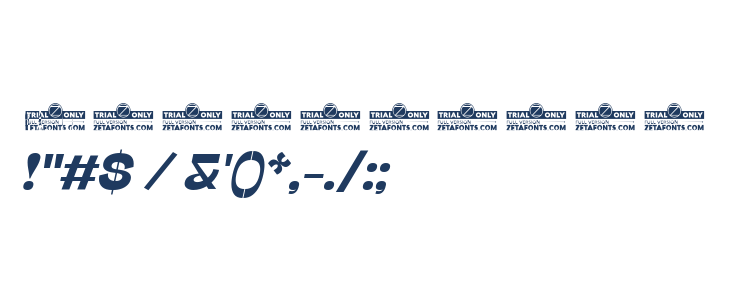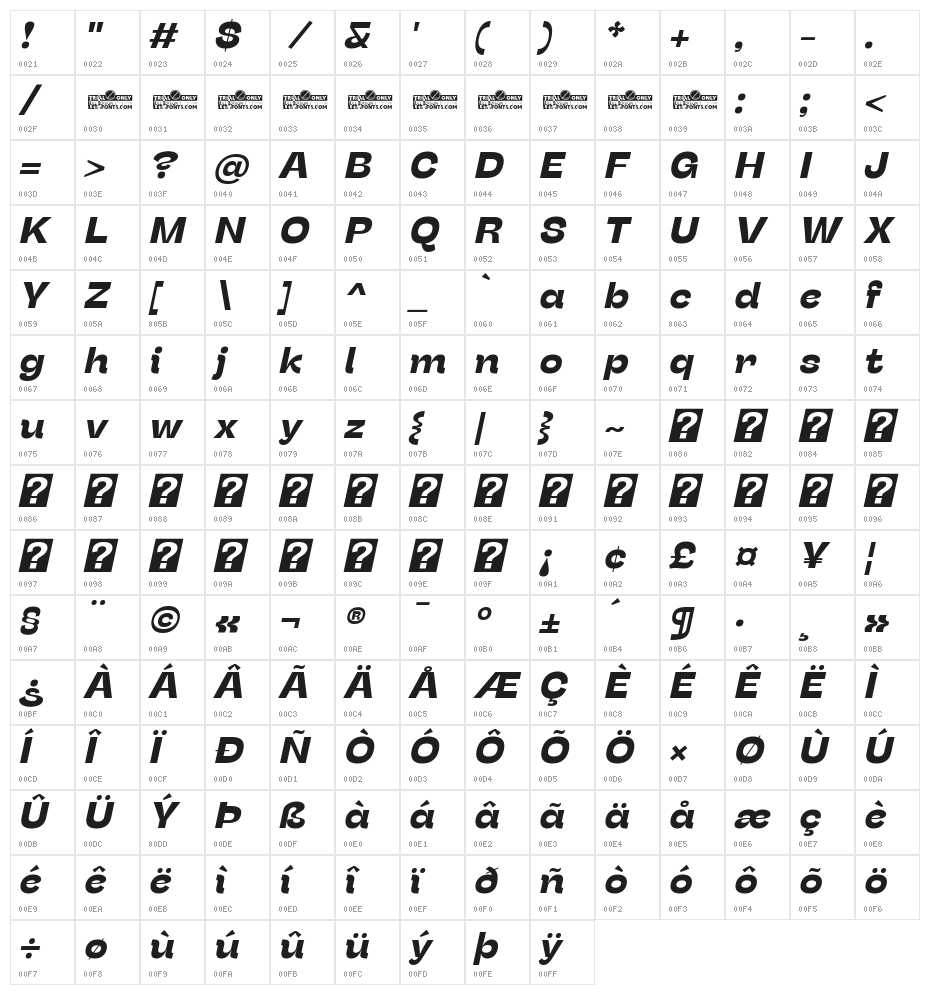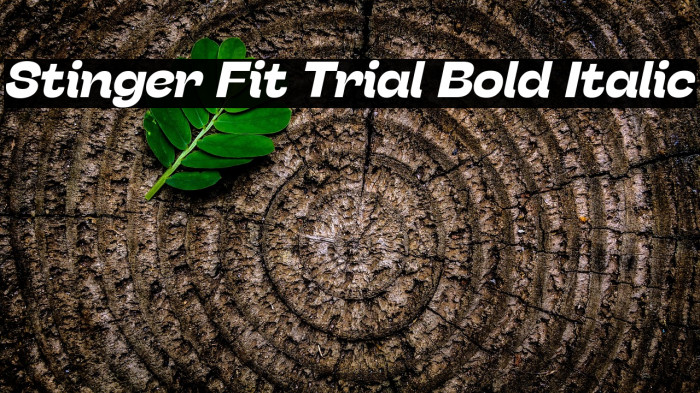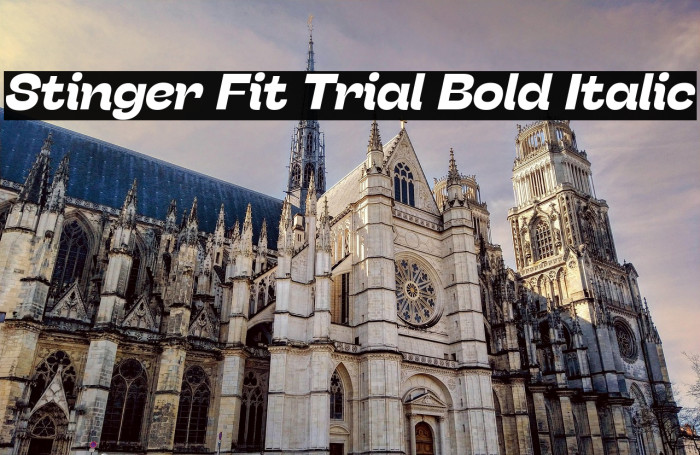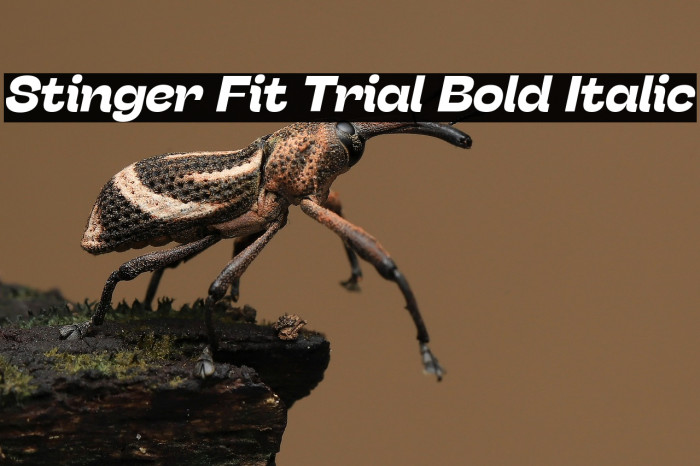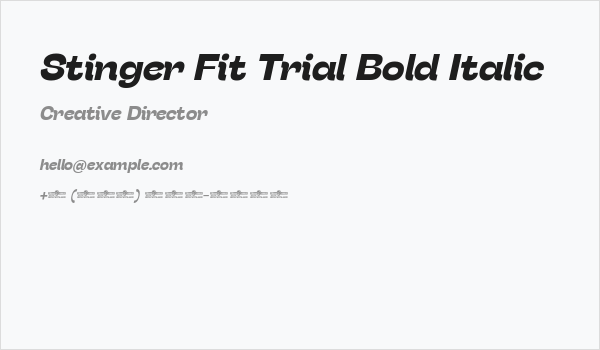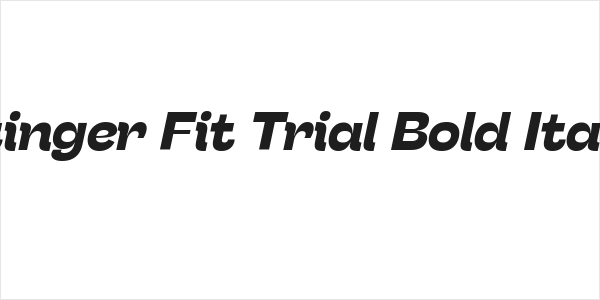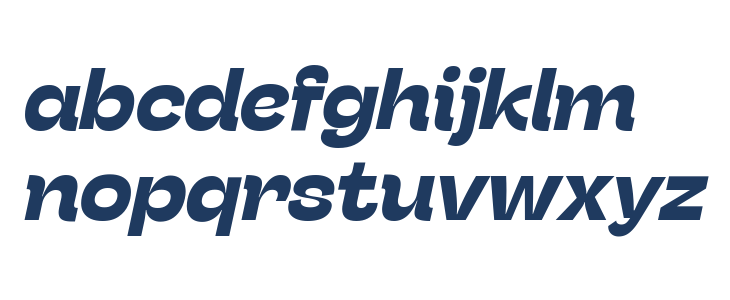
Stinger Fit Trial Bold Italic Font
Stinger Fit Trial Bold Italic Description
This font exhibits a bold and dynamic presence with its italicized style, giving it a sense of movement and energy. The characters are robust, with a slightly condensed width that enhances its boldness. The strokes are consistent, providing a uniform appearance across all characters. The uppercase and lowercase letters maintain a cohesive design, ensuring readability while adding a modern flair. The numerals and special characters are designed to match the overall aesthetic, making this font versatile for various applications.
| Use Case | Headlines, Logos, Advertising |
| Proposed Projects | Ideal for sports branding, dynamic advertising, and modern editorial design. |